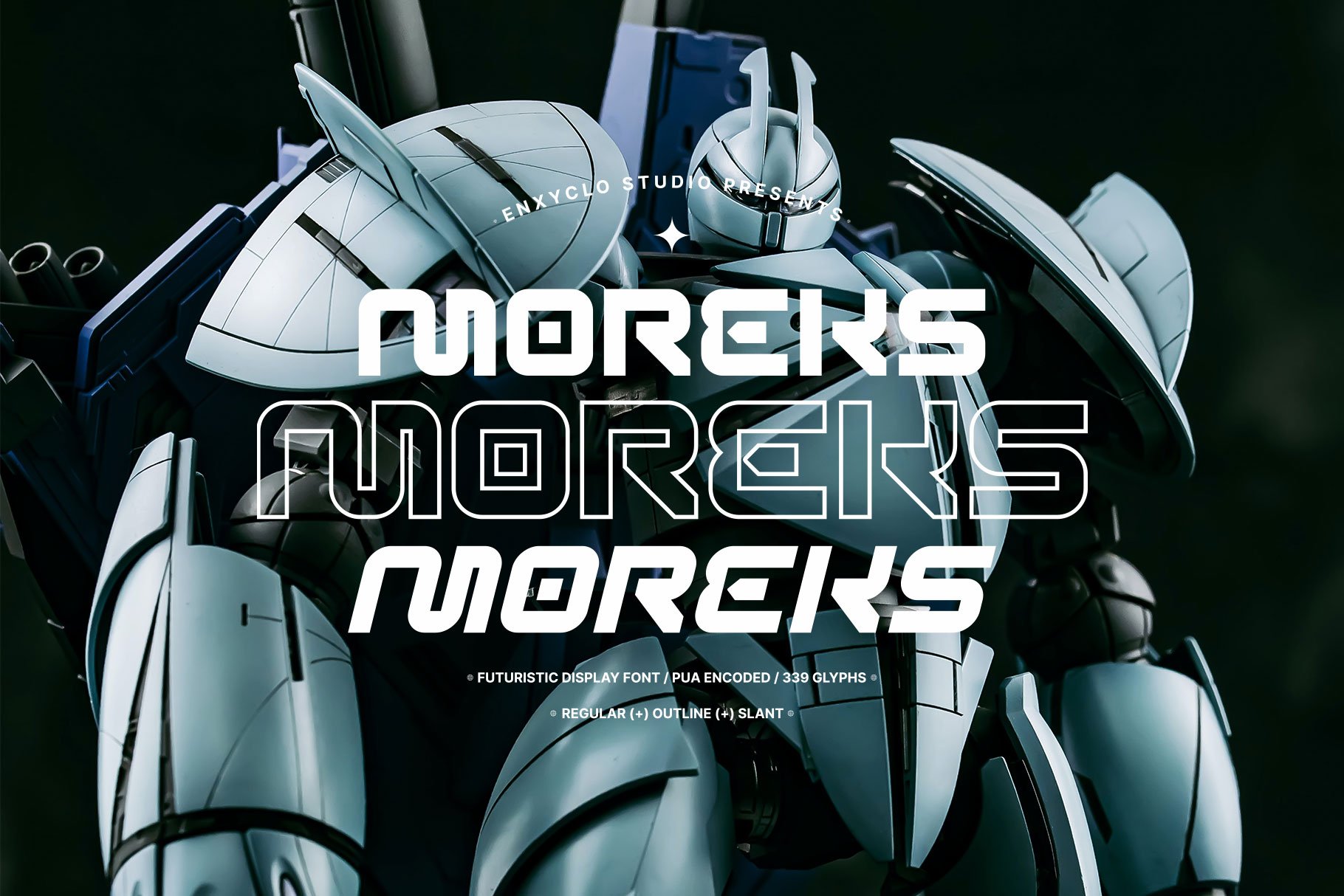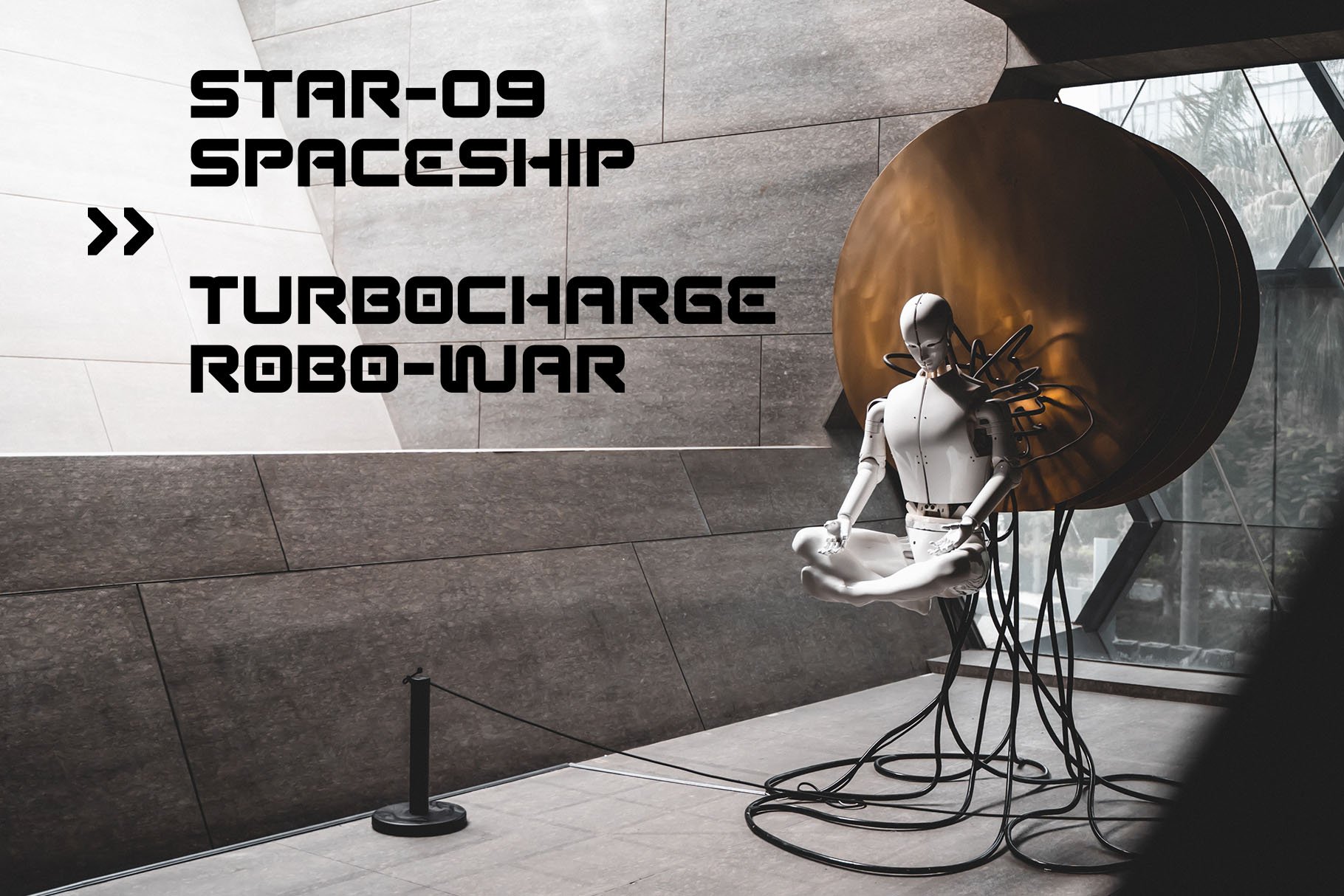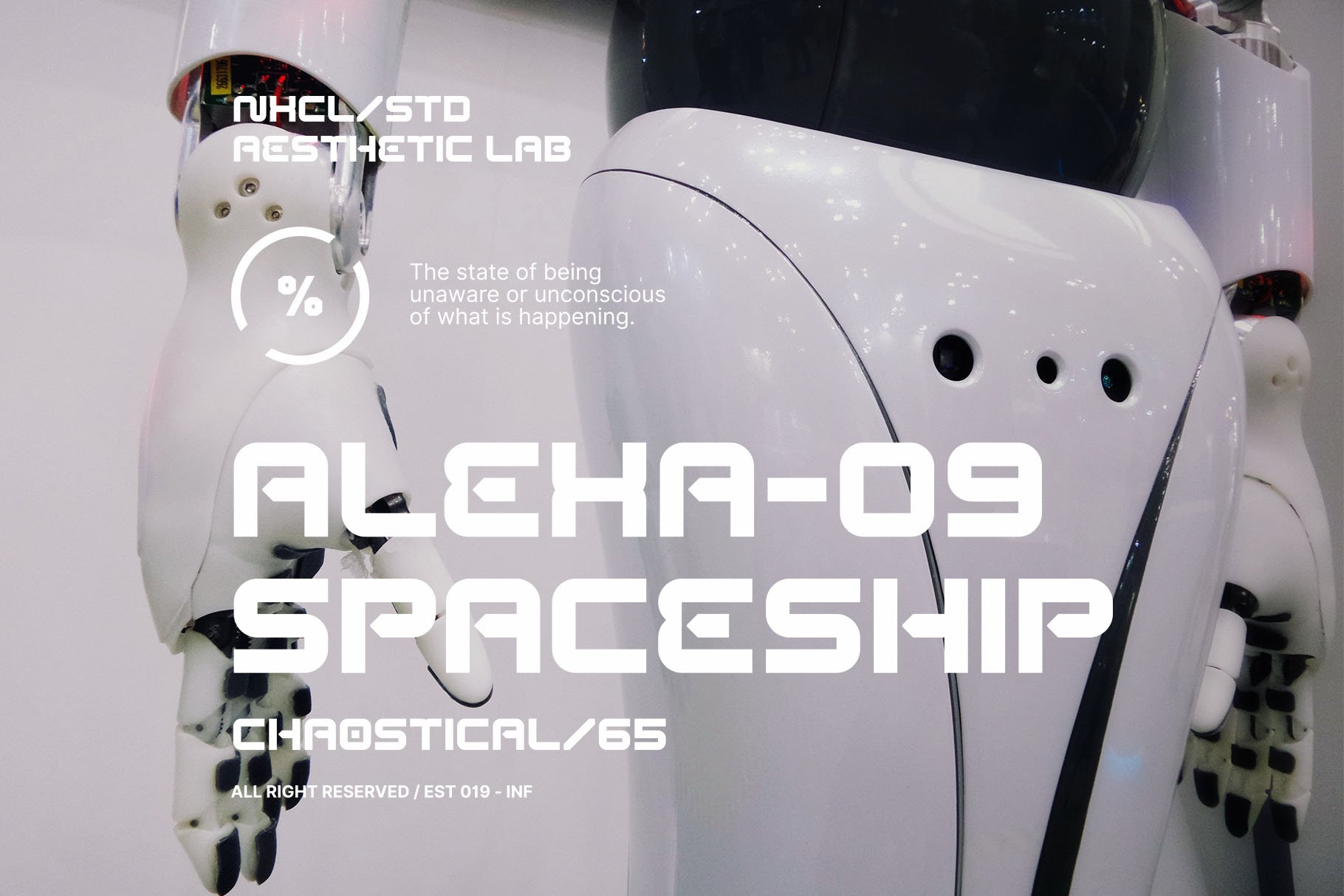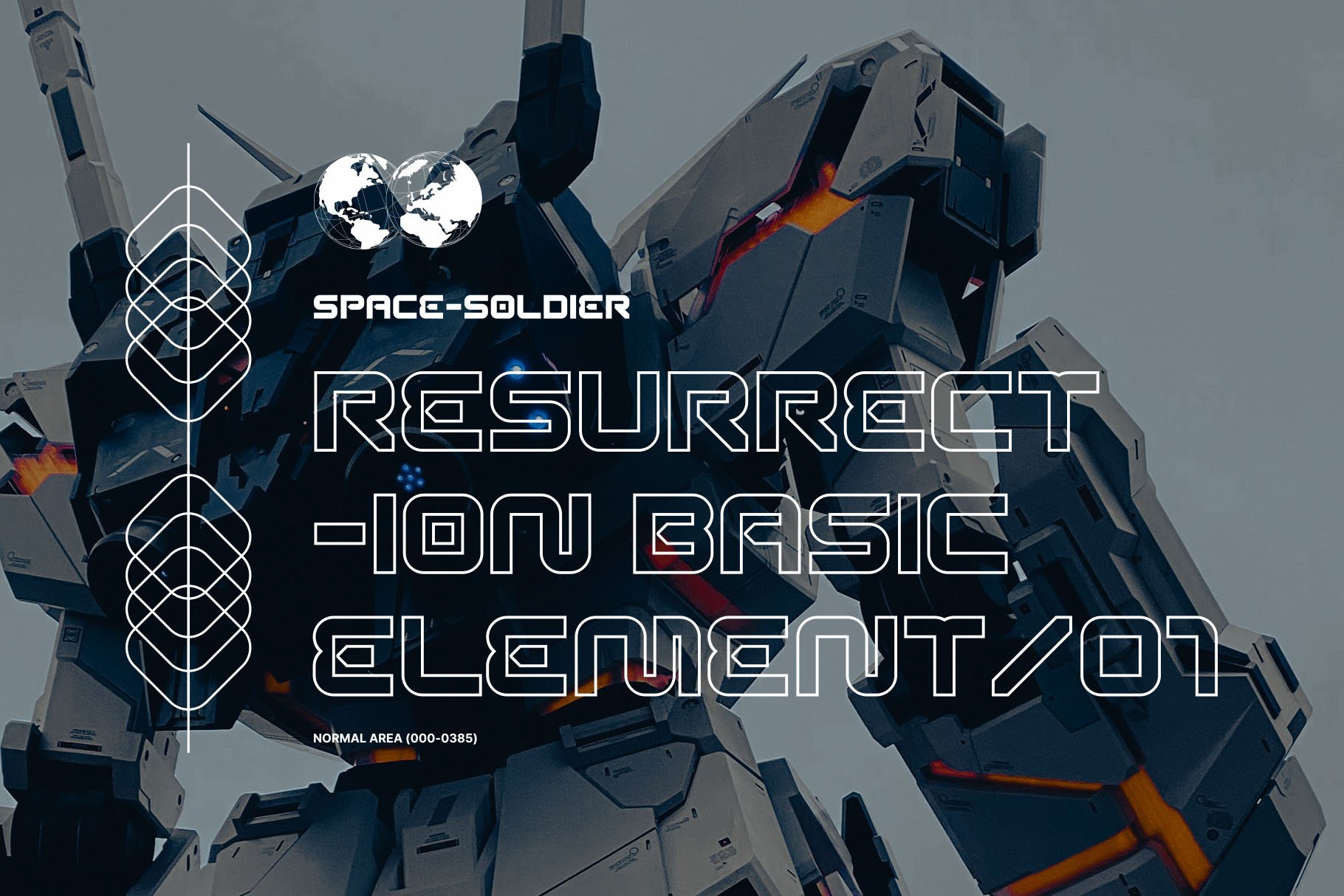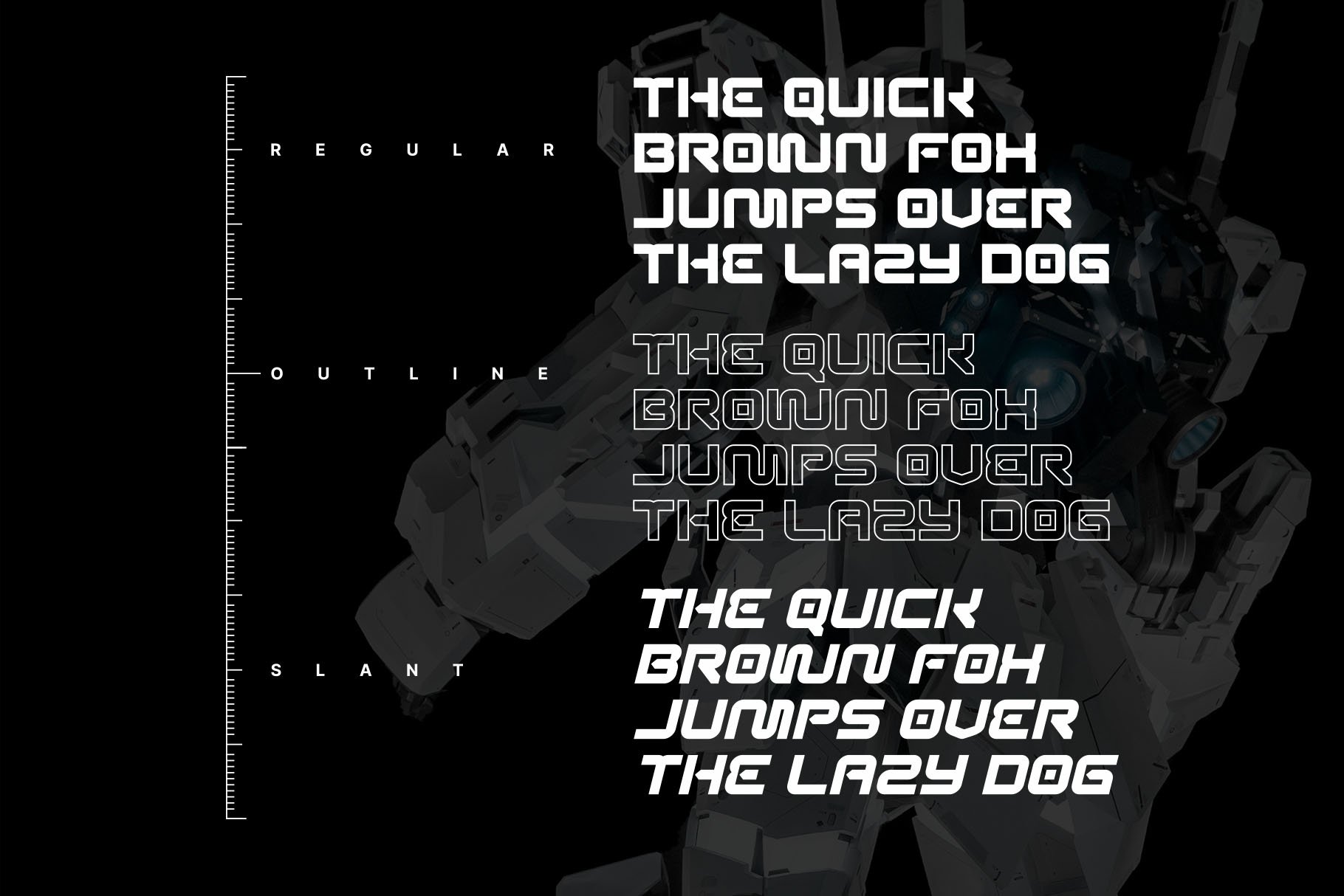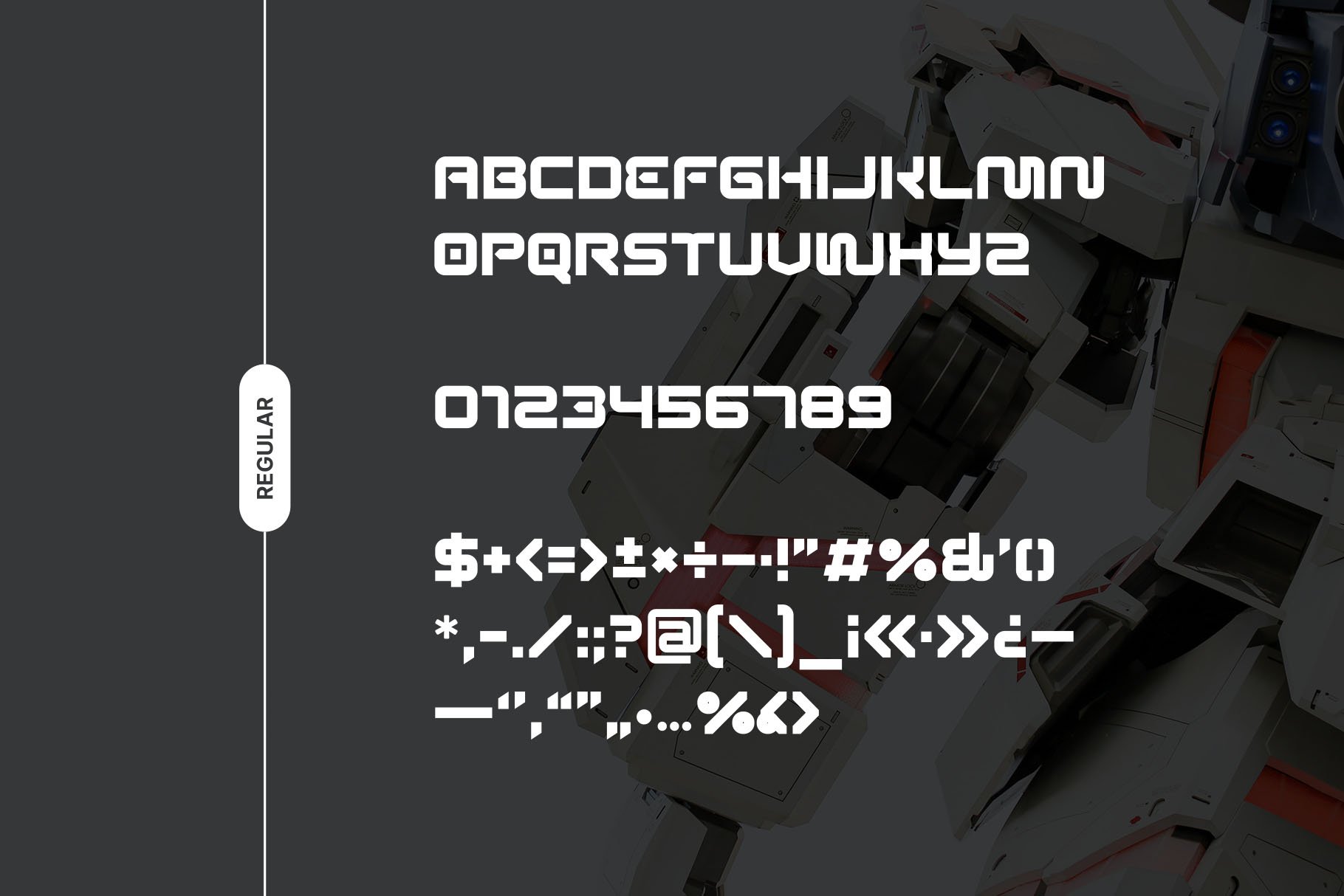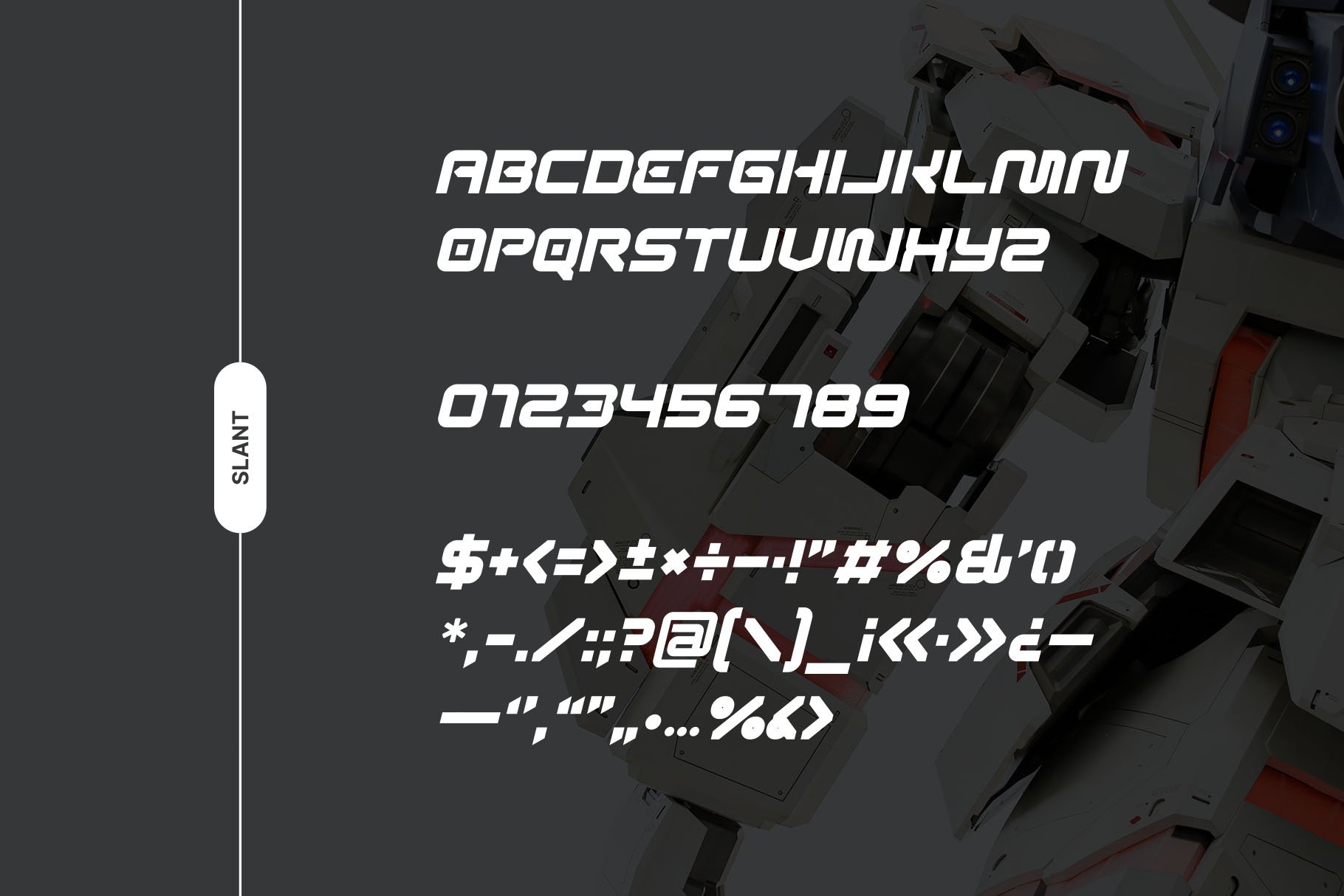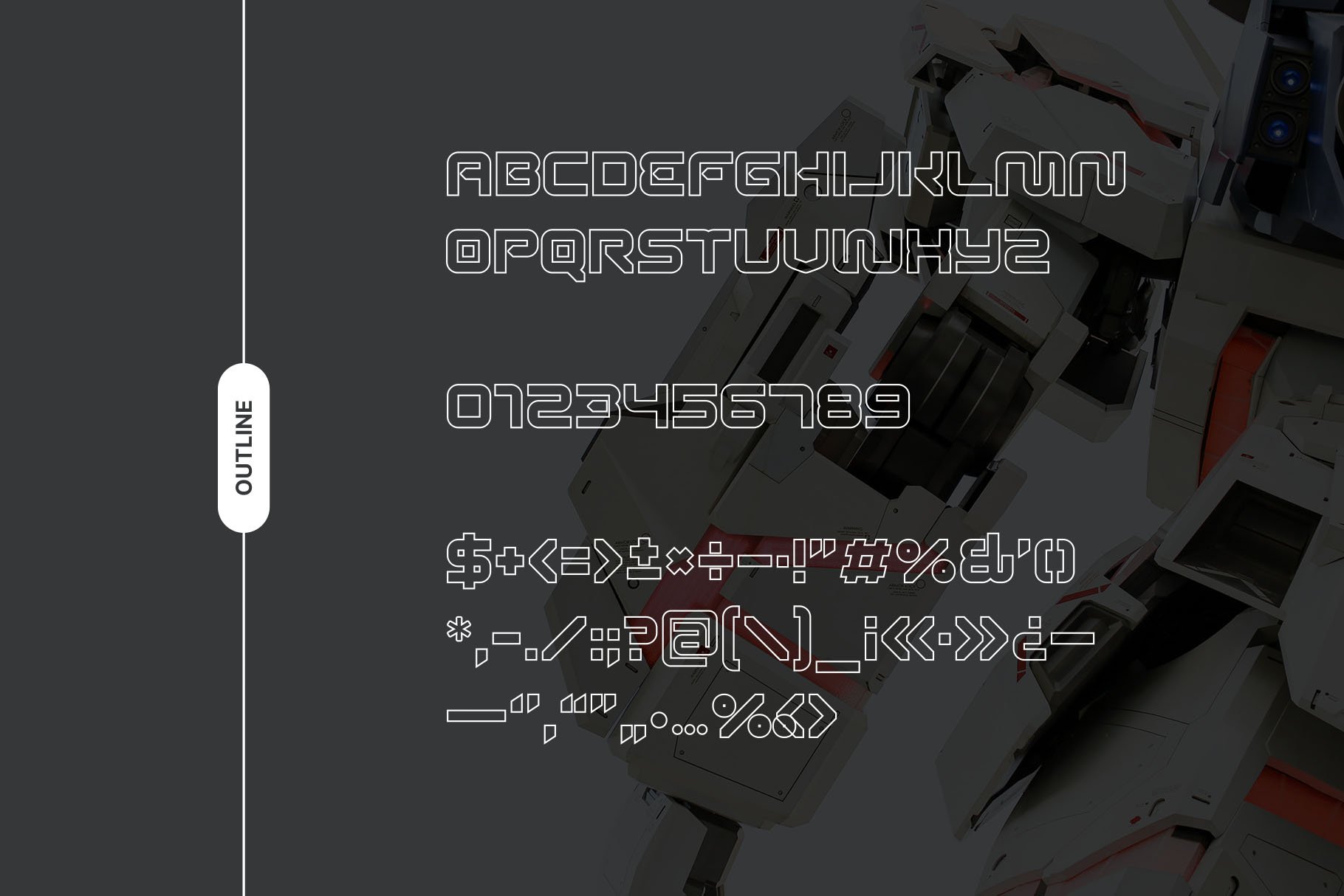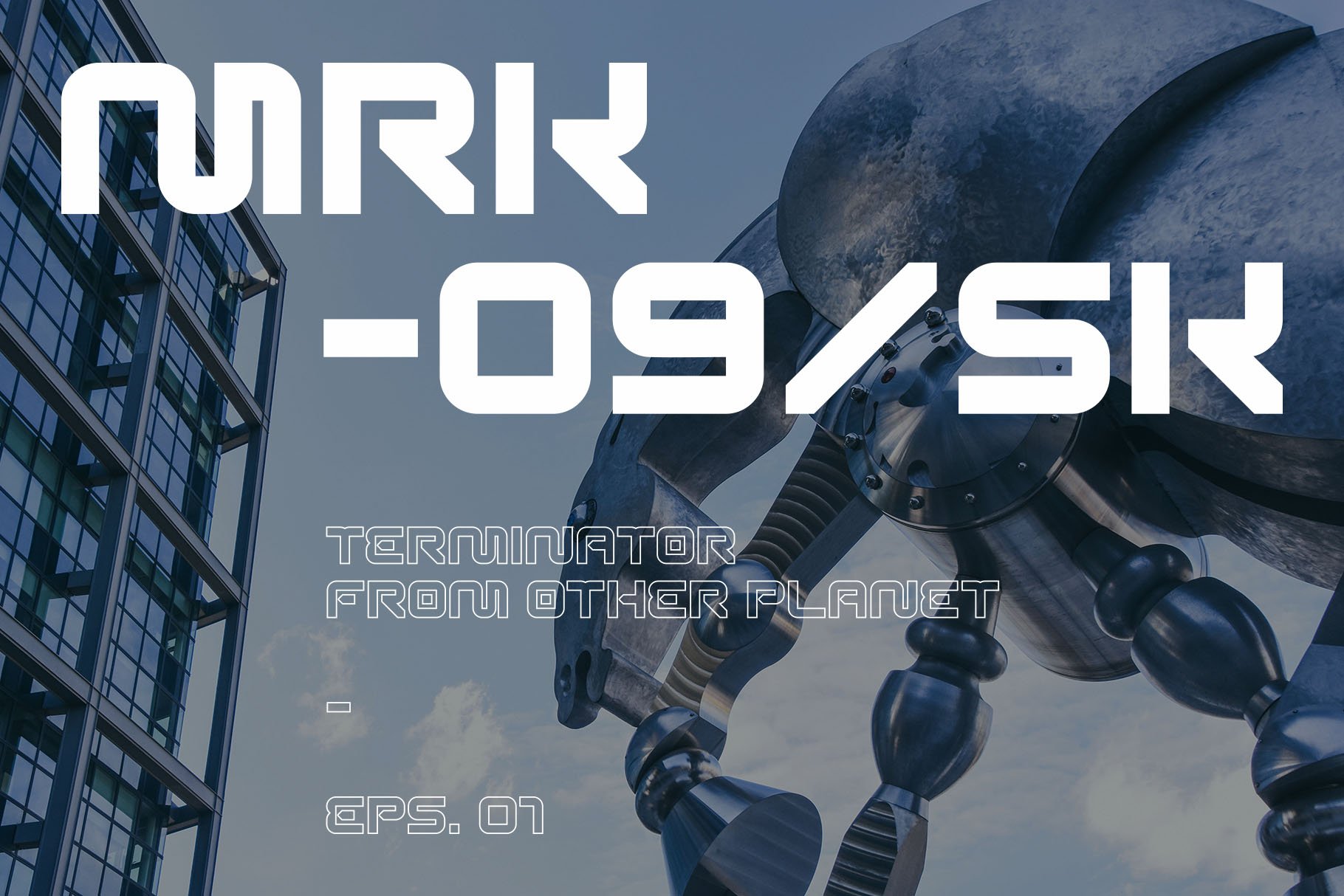
MOREKS is futuristic display font. The design of typeface will make your project more powerful and inspiring. It is perfect for headline, billboard, magazines, website, titles, poster, branding, thumbnail, t-shirt design, street wear design, and creative logos, or any project that needs futuristic touch. With this beautiful futuristic display font, absolutely you can make your project stand out from the rest. See the previews above to get some inspiration on how to use them.
FEATURES
• 3 Styles: Regular, Outline & Slant
• Contains 113 Glyphs for Each Style (Total: 339 Glyphs)
• Uppercase, Numeral, Punctuation & Symbol